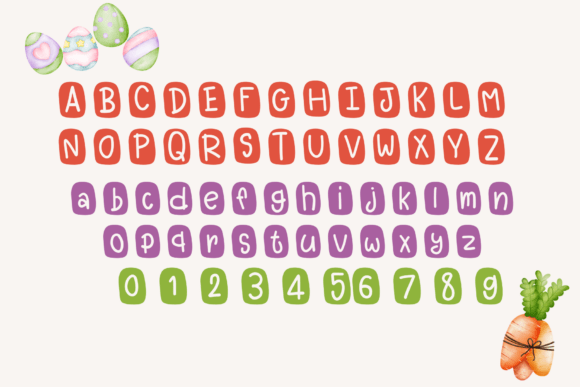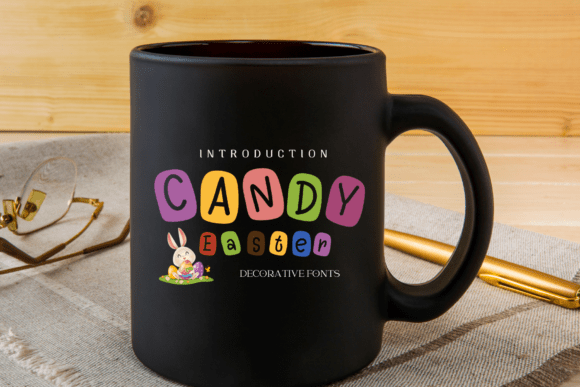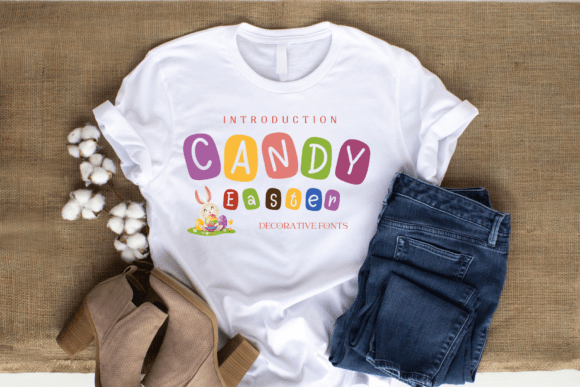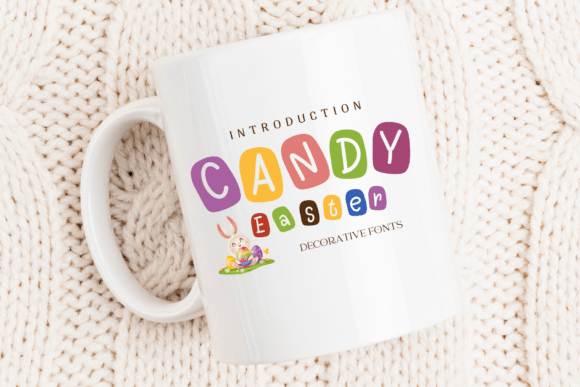
Candy Easter Font: A Sweet Addition to Your Design Collection
Are you looking for a font that’s as fun and playful as the Easter holiday? Look no further than the Candy Easter Font! This decorative font is perfect for adding a touch of whimsy to your designs, from greeting cards to social media posts. In this article, we’ll take a closer look at the Candy Easter Font, its features, and the many ways you can use it to create eye-catching designs.
What is Candy Easter Font?
Candy Easter Font is a decorative font that’s specifically designed to capture the sweet and festive spirit of Easter. With its bold, colorful, and playful letters, this font is sure to add a pop of fun to any design. Whether you’re a designer, crafter, or simply someone who loves to get creative, Candy Easter Font is a great addition to your font collection.
Features of Candy Easter Font
So, what makes Candy Easter Font so special? Here are just a few of its key features:
- Decorative letters: Candy Easter Font features bold, colorful letters that are perfect for making a statement.
- Playful vibe: This font has a fun and playful vibe that’s perfect for Easter-themed designs.
- Versatile: Candy Easter Font can be used for a wide range of designs, from greeting cards to social media posts.
Uses for Candy Easter Font
So, how can you use Candy Easter Font in your designs? The possibilities are endless! Here are a few ideas to get you started:
- Greeting cards: Create eye-catching Easter greeting cards with Candy Easter Font.
- Social media posts: Add a touch of fun to your Easter-themed social media posts with this playful font.
- Banners: Create colorful banners with Candy Easter Font to hang at your Easter party or event.
- Mugs: Design fun and festive Easter mugs with Candy Easter Font.
- Shirts: Create Easter-themed shirts with this decorative font.
- Stationery: Add a touch of whimsy to your Easter stationery with Candy Easter Font.
Tips for Using Candy Easter Font
Here are a few tips for getting the most out of Candy Easter Font:
- Experiment with colors: Candy Easter Font looks great in bright, bold colors. Experiment with different colors to find the perfect combination for your design.
- Mix and match: Try pairing Candy Easter Font with other fonts to create a unique and eye-catching design.
- Keep it simple: Don’t be afraid to keep your design simple and let the font be the star of the show.
Candy Easter Font is a fun and playful decorative font that’s perfect for adding a touch of whimsy to your Easter designs. With its bold, colorful letters and versatile uses, this font is a great addition to any design collection. Whether you’re a designer, crafter, or simply someone who loves to get creative, Candy Easter Font is sure to inspire your next Easter project.